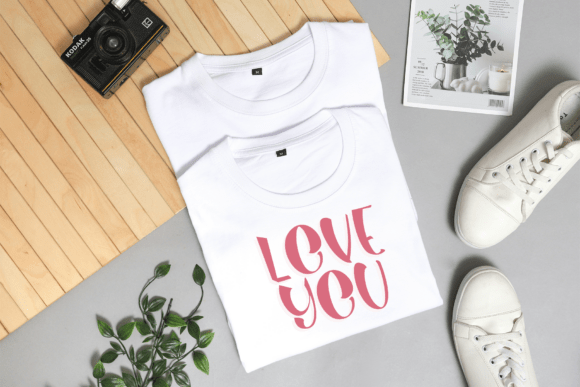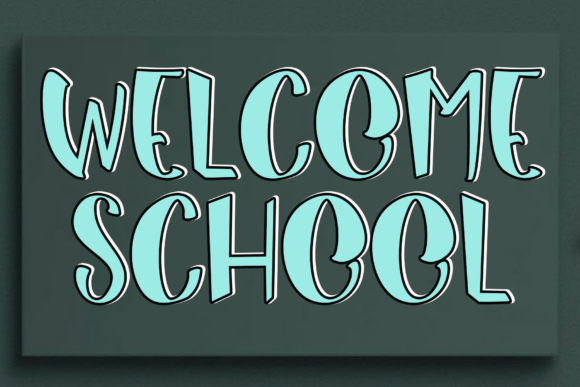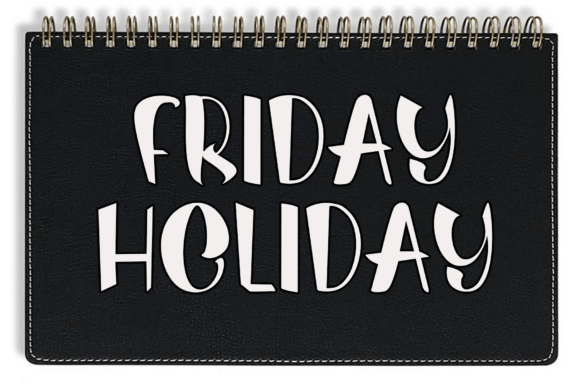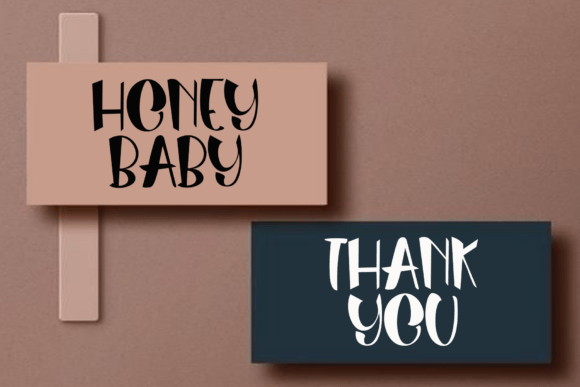
The Secret to Making Your Designs Shine: Introducing Butter Font
Have you ever been stuck in a creative rut, staring at a blank page with no inspiration in sight? It’s a feeling we’ve all been there. But then, something magical happens. You stumble upon a font that speaks to you, one that brings your ideas to life and makes them feel truly special. For many designers, that font is Butter Font – a cool, simple, and playful handwritten font that adds a touch of magic to any design.
Beyond its charming aesthetic, Butter Font is incredibly versatile, making it a valuable addition to any designer’s toolkit. Whether you’re working on a branding project, creating a social media campaign, or crafting a marketing material, this font is sure to elevate your designs to new heights. With its ability to add a touch of whimsy and personality, Butter Font is a game-changer for designers looking to take their work to the next level.
Key Features of Butter Font
- Unique Characteristics: The Butter Font features a unique blend of modern and vintage elements, with a distinctive rounded edge and a friendly, approachable feel.
- Font Style: The font is available in regular, italic, bold, and bold italic styles, providing flexibility for different design applications.
Designer Review: Butter Font
Overall, I’d say that the Butter Font is a visually appealing choice for a project. ✨ Its rounded edges and gentle curves create a friendly atmosphere that’s perfect for branding and UI design. The font’s high contrast between light and dark tones makes it highly legible, which is always a plus.
One of the things that I appreciate about the Butter Font is its versatility. ✨ It comes in a range of weights, from light to bold, which gives designers the flexibility to use it in a variety of contexts. The font also includes a range of international characters, making it suitable for projects that require a global reach.
However, I do have a few reservations about the Butter Font. ⚠️ For one thing, it may not be the best choice for projects that require a highly technical or formal tone. The font’s rounded edges and friendly atmosphere can make it seem a bit too casual for certain types of projects.
- May not be suitable for highly technical or formal projects
- Can be a bit too casual for certain types of projects
- Not as unique or distinctive as some other fonts on the market
Overall, I think the Butter Font is a solid choice for designers who want a friendly and approachable font that’s easy to read. While it may not be the best fit for every project, it’s certainly a versatile and attractive option to consider.
For optimal results, pair Butter Font with a clean and simple design. Use it for titles, headings, and short paragraphs to create a visually appealing contrast with other fonts.
Butter Font is ideal for creative projects, such as: social media graphics, blog posts, flyers, and brochures. It’s also suitable for branding and logo designs, especially for food, fashion, and lifestyle businesses.